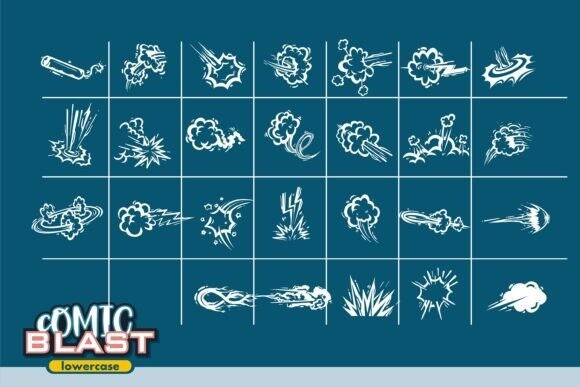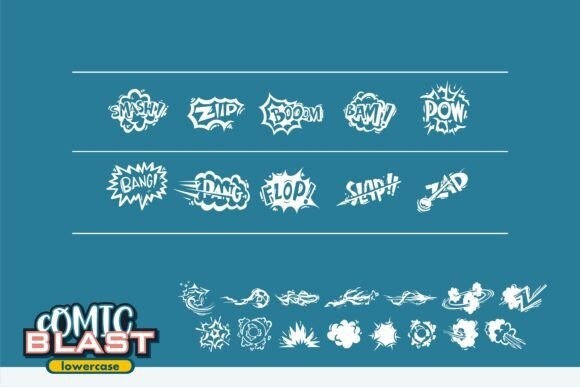
Comic Blast Font
Comic Blast Font is a uniquely dingbats font that is cute, inspired by comic books and pop art. It can be used in a variety of styles, making it suitable for various designs. Whether you’re using it for crafts, digital design, presentations, or making greeting cards, this font has the potential to become your favorite go-to font, no matter the occasion!